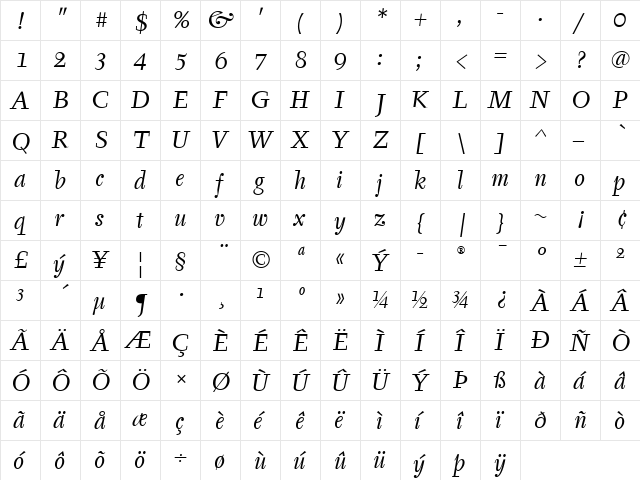
Tyfa ITC Book Italic
Design Context for Tyfa ITC Typeface
Tyfa ITC is a composed and adaptable typeface that performs quietly and consistently across a wide range of design contexts. The dynamic lean of this cut emphasises speed and emphasis in any layout.
Pro Tip: Try Tyfa ITC for annotation and caption copy alongside an upright companion — the contrast in angle creates a dynamic but ordered typographic system.